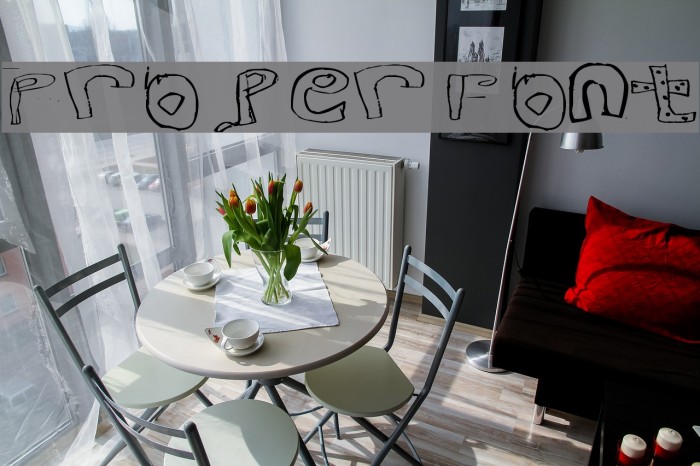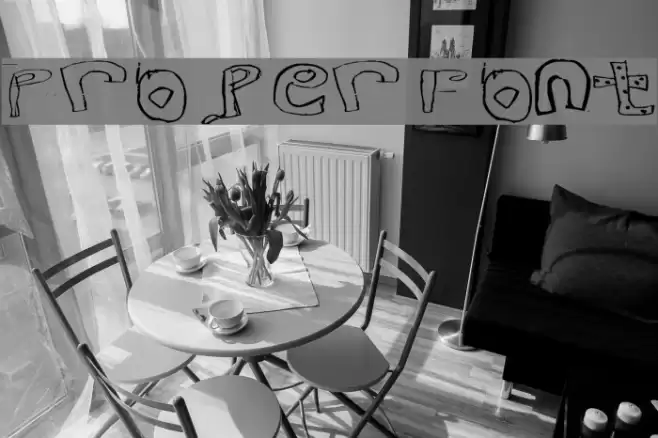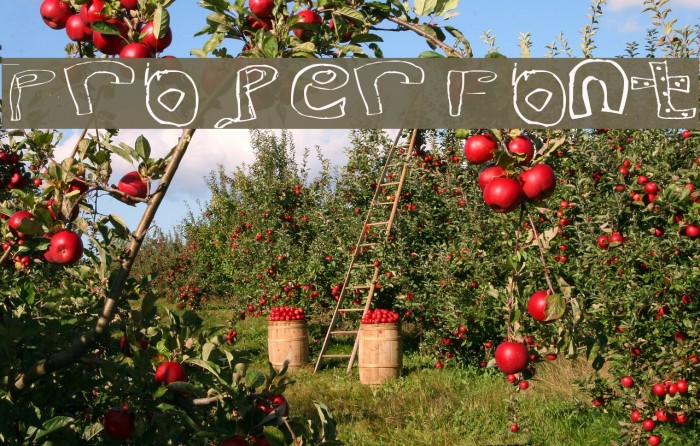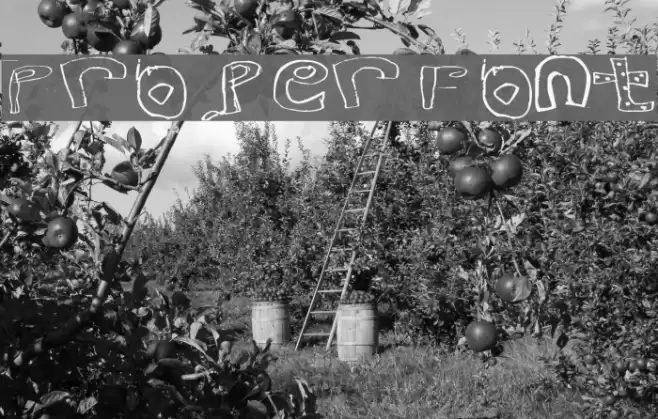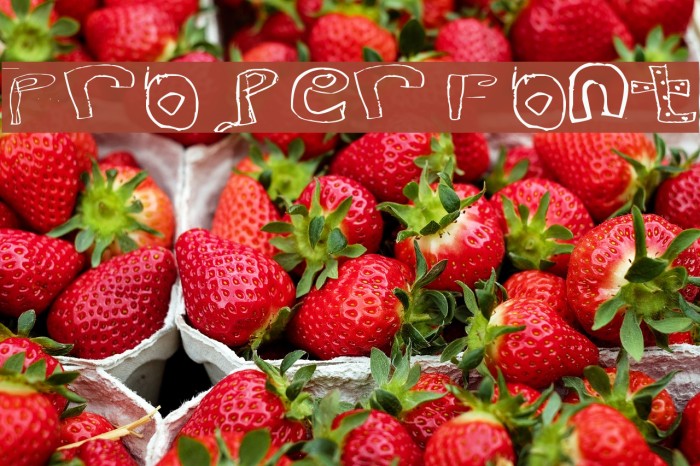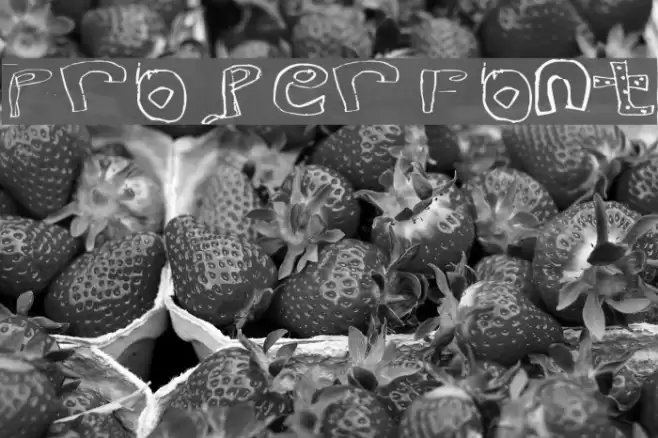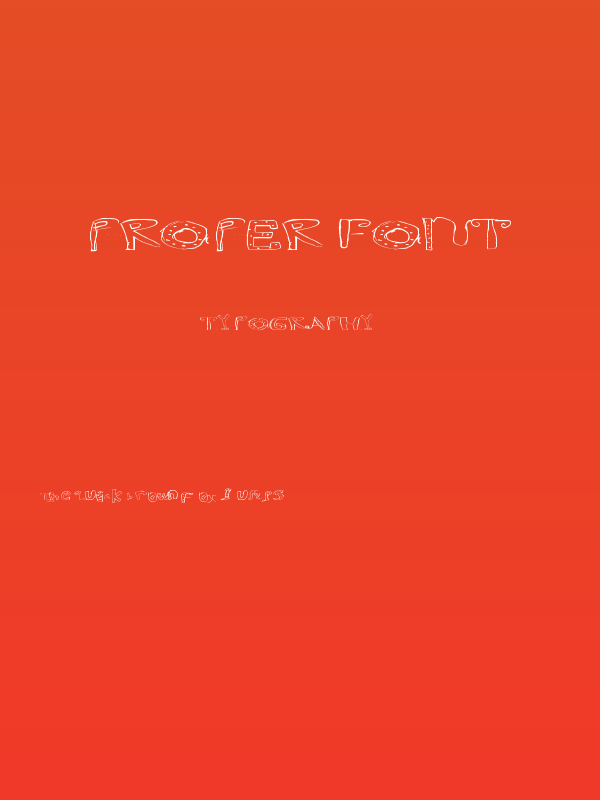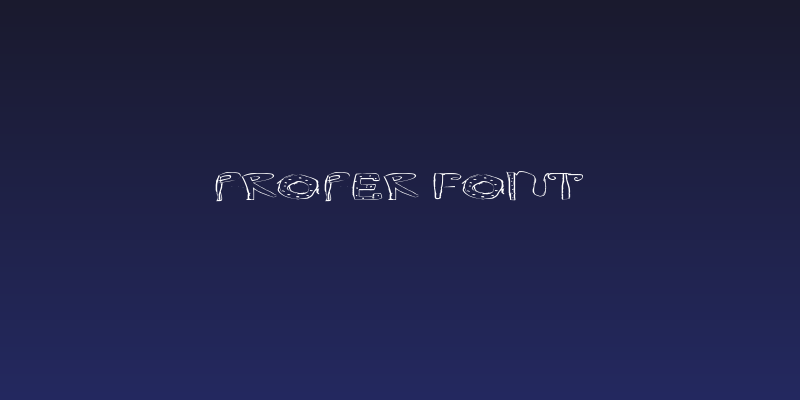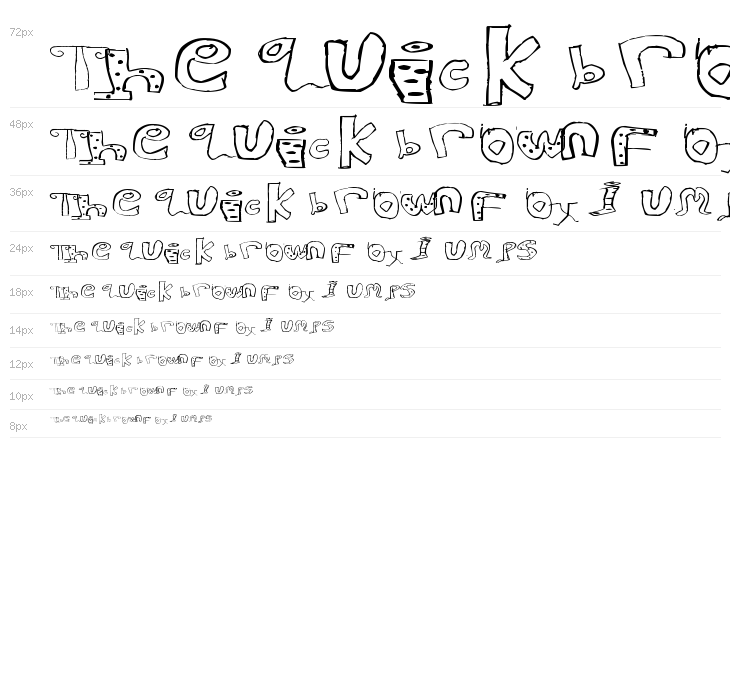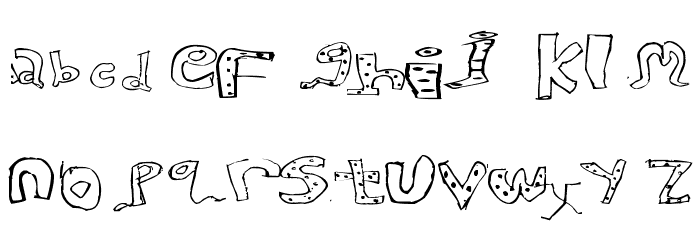
Proper Font Font
Proper Font Description
This font features a playful and whimsical style, characterized by its irregular and quirky letterforms. Each character is uniquely designed with a hand-drawn aesthetic, incorporating various patterns and textures such as dots and stripes. The uppercase and lowercase letters maintain a consistent theme, while the numerals and special characters complement the overall design. The font's artistic flair makes it stand out, offering a creative and informal vibe suitable for fun and engaging projects.